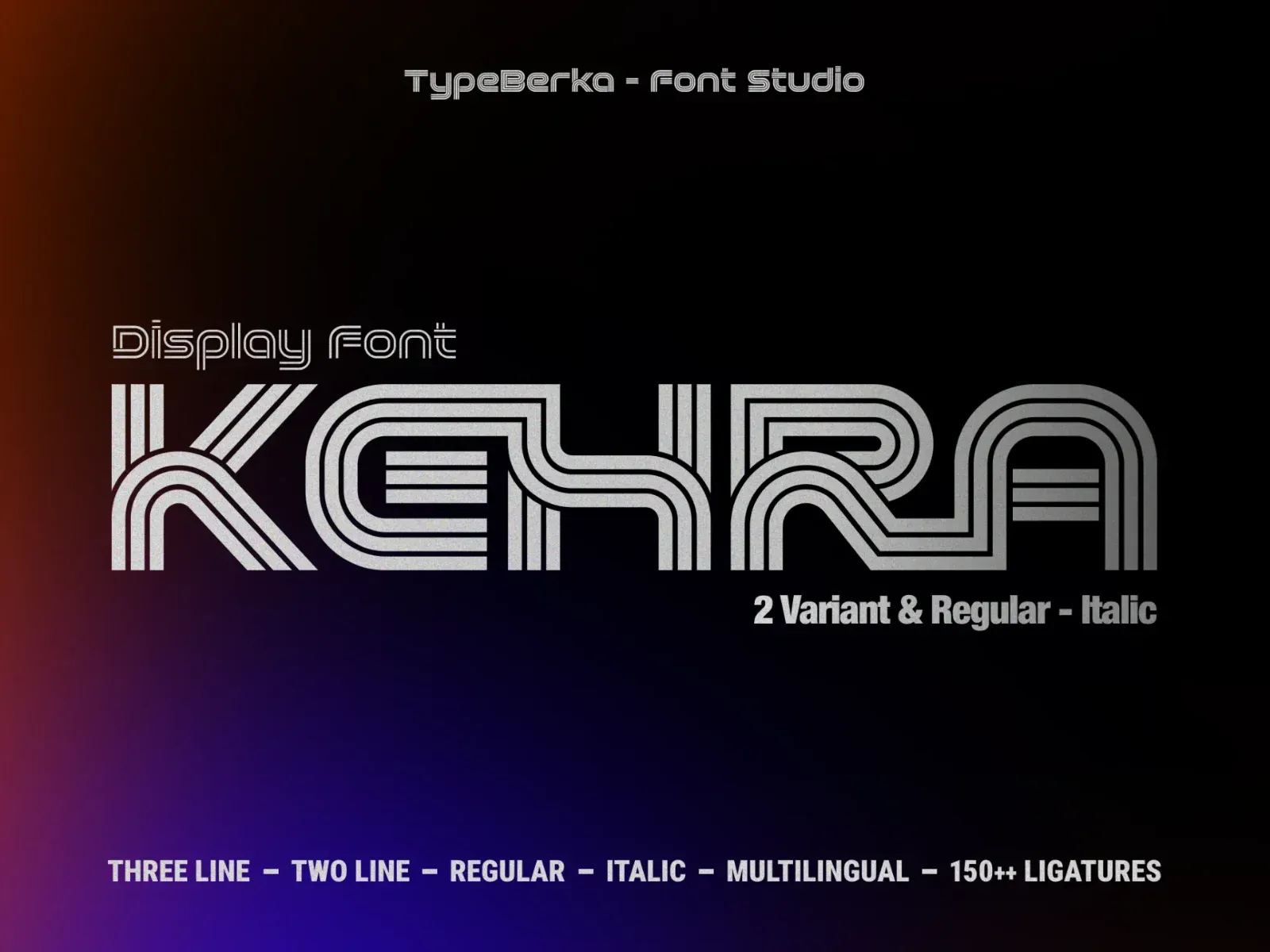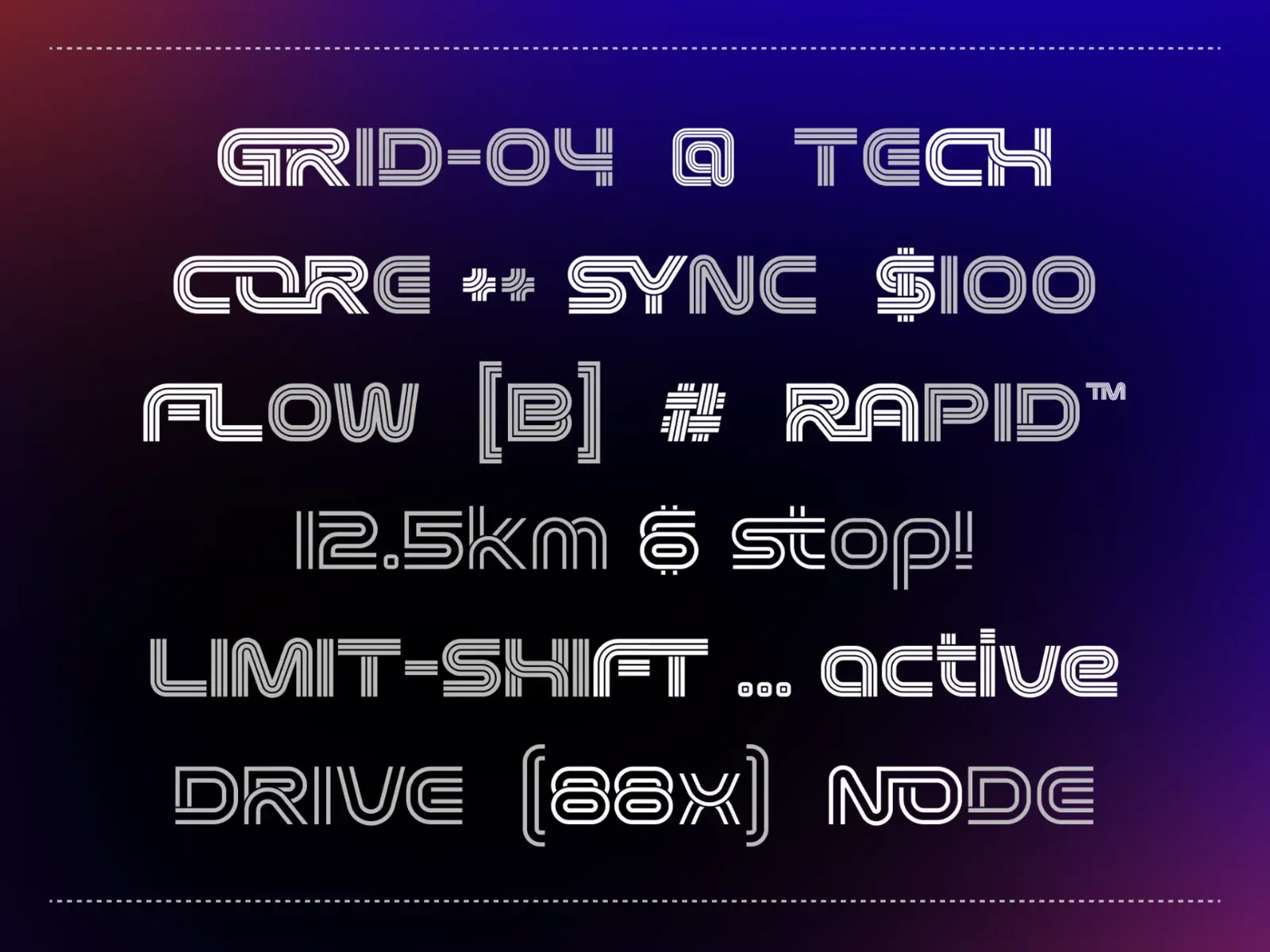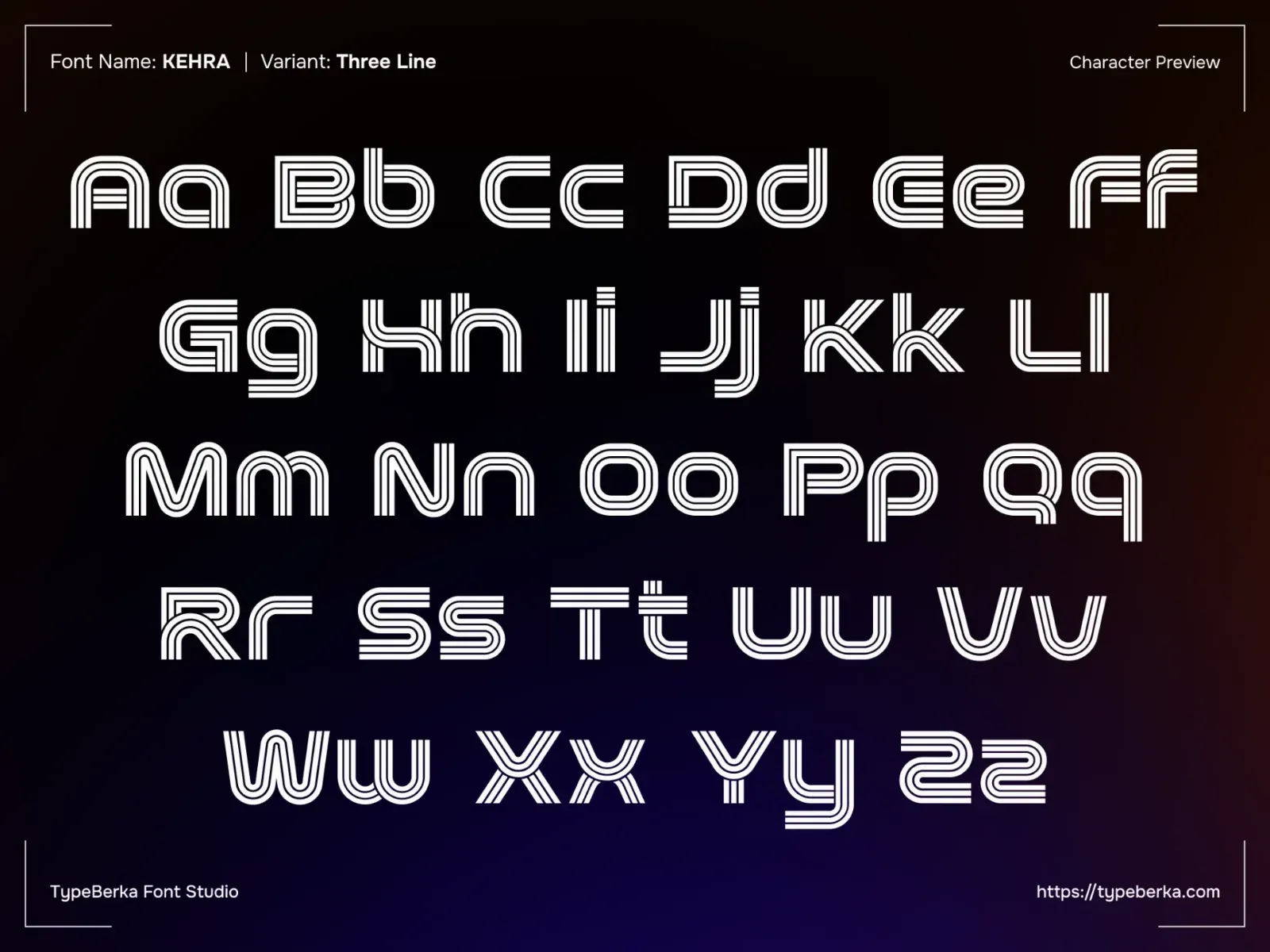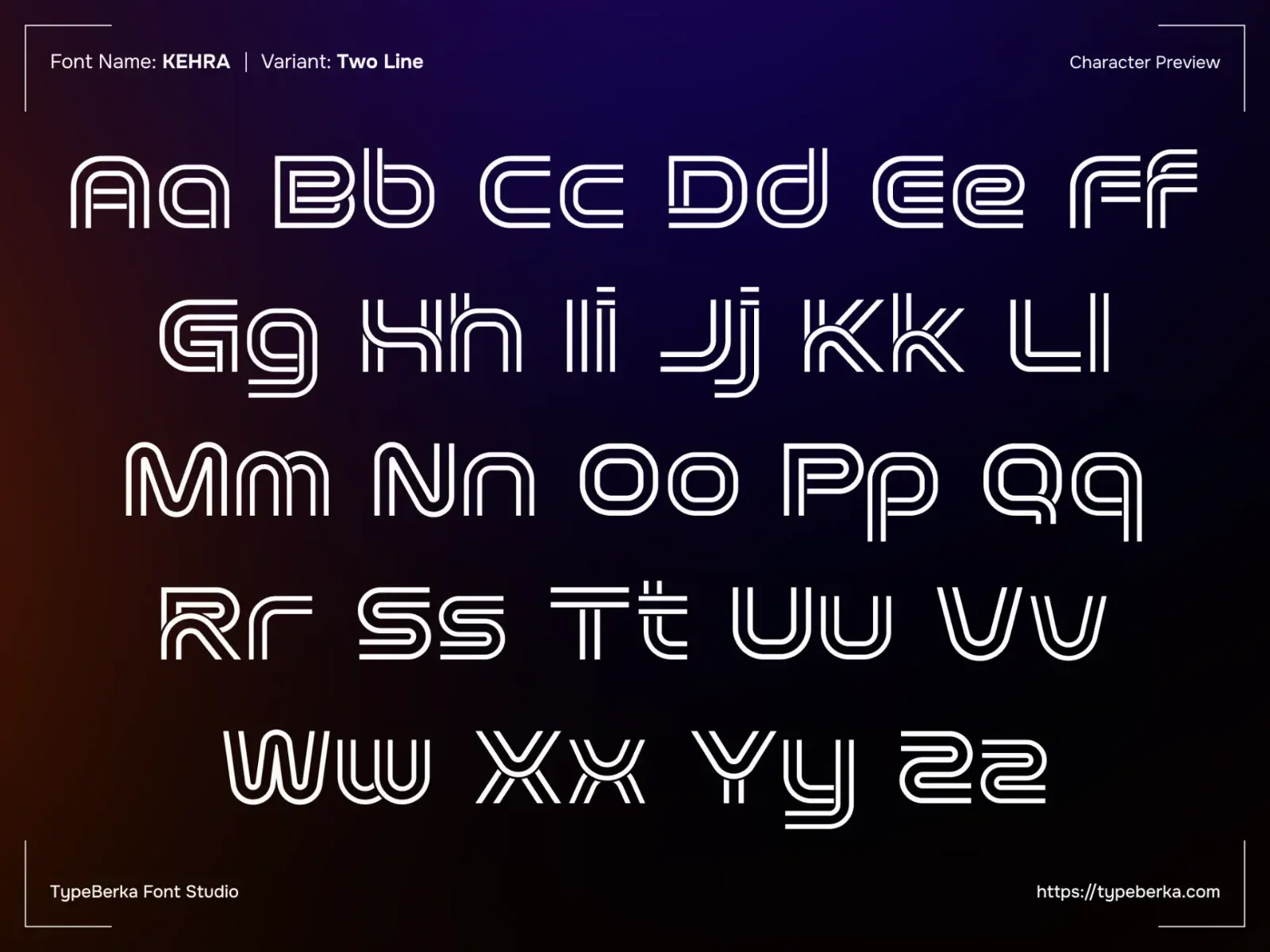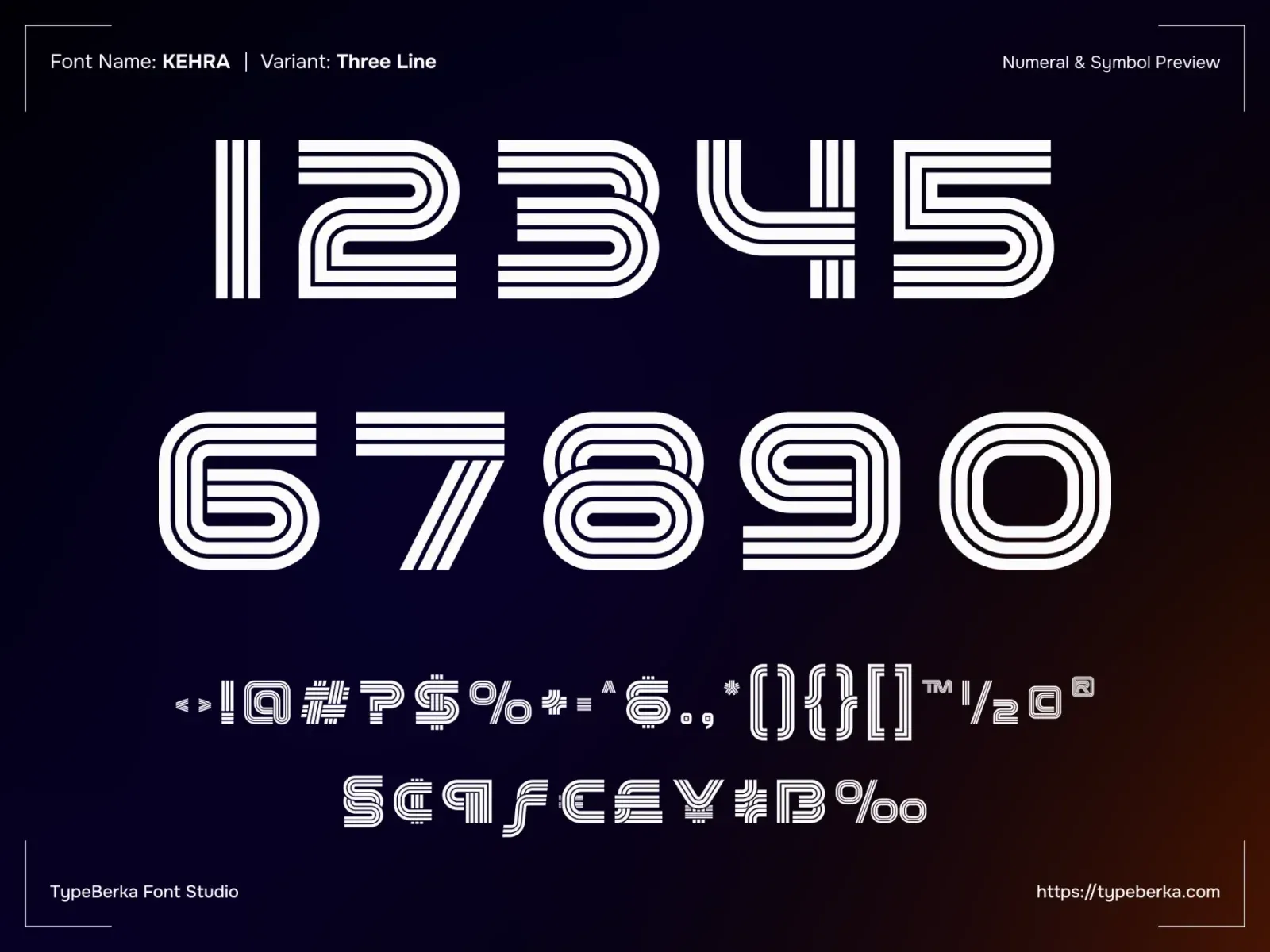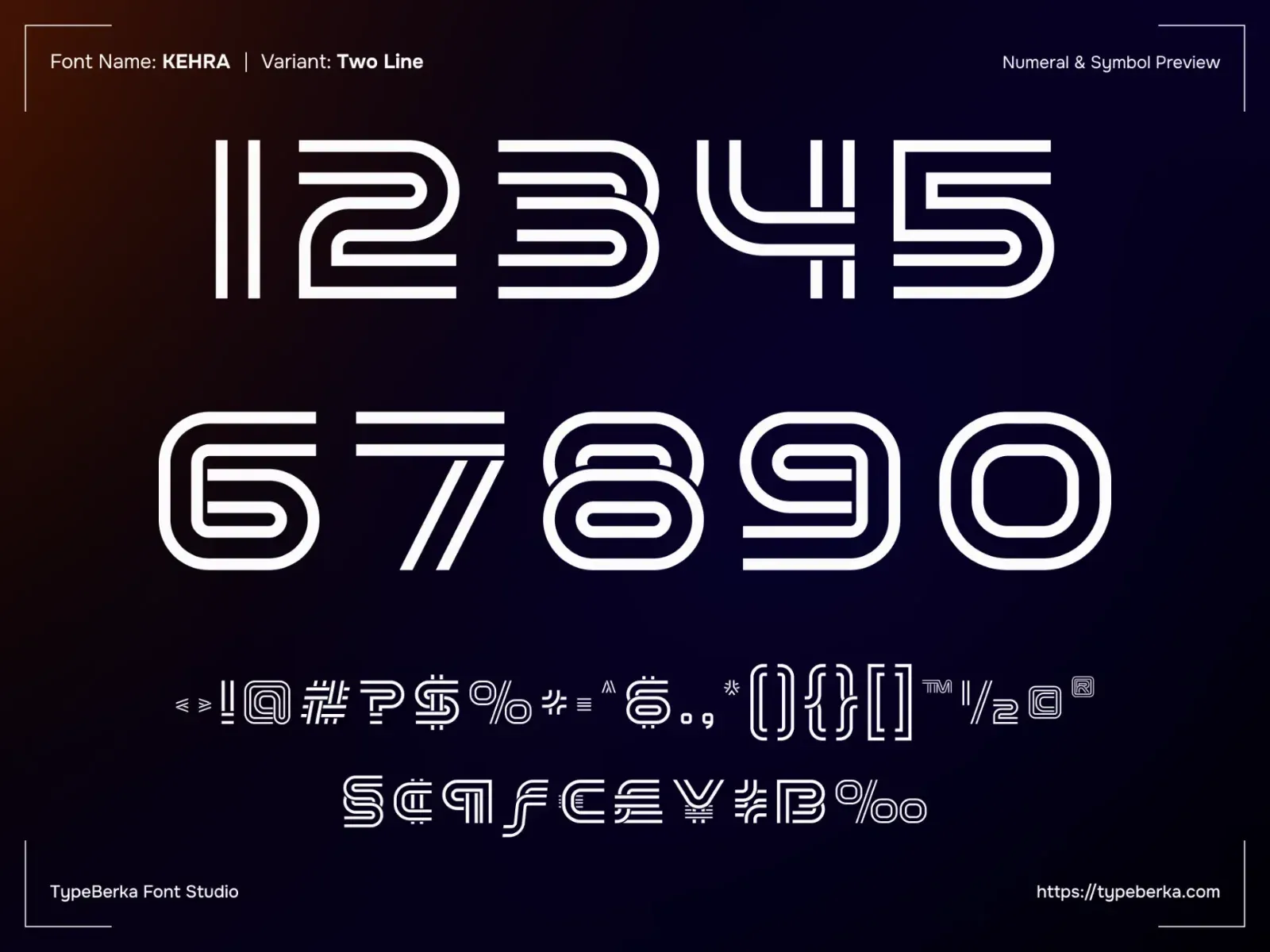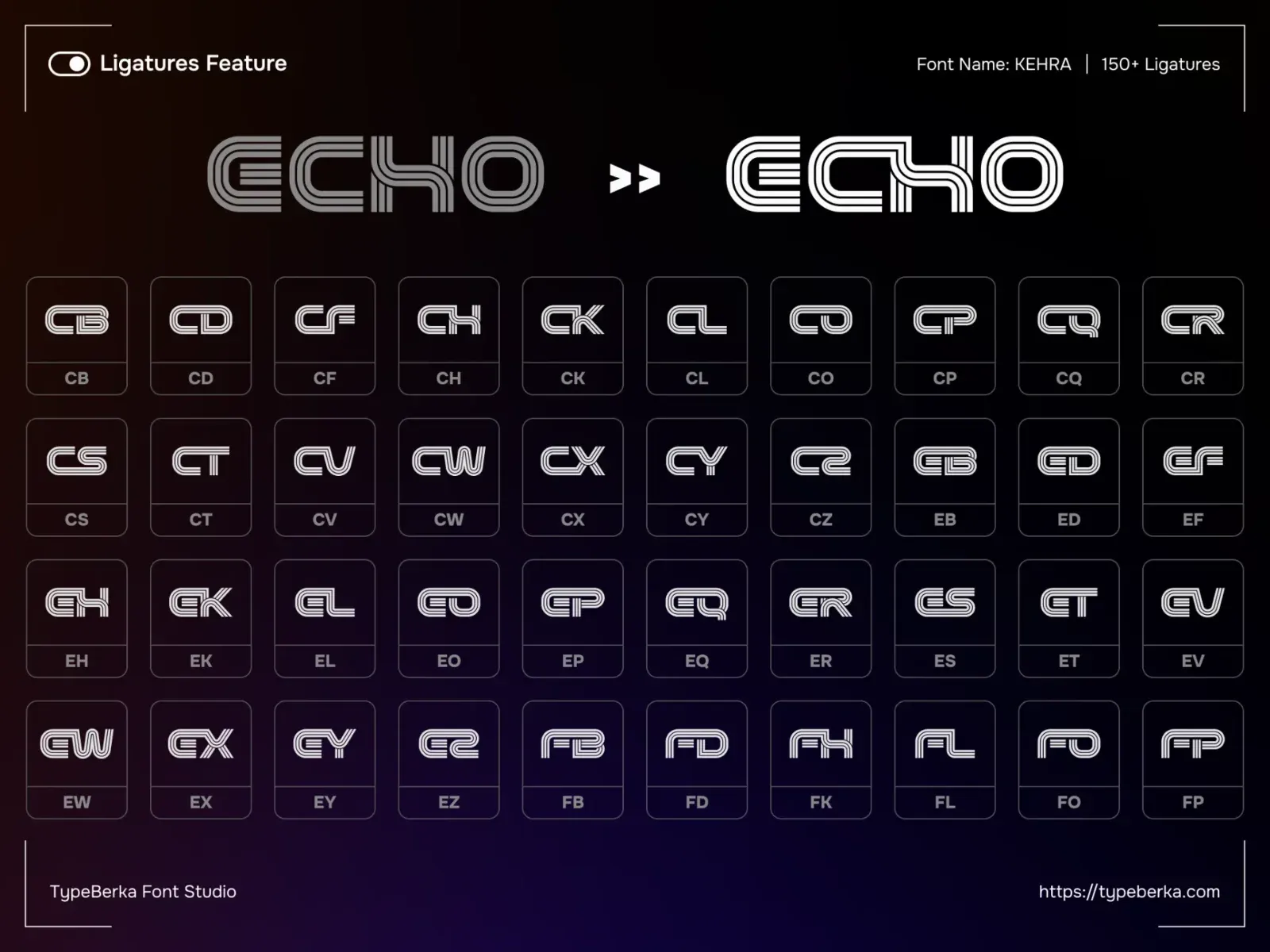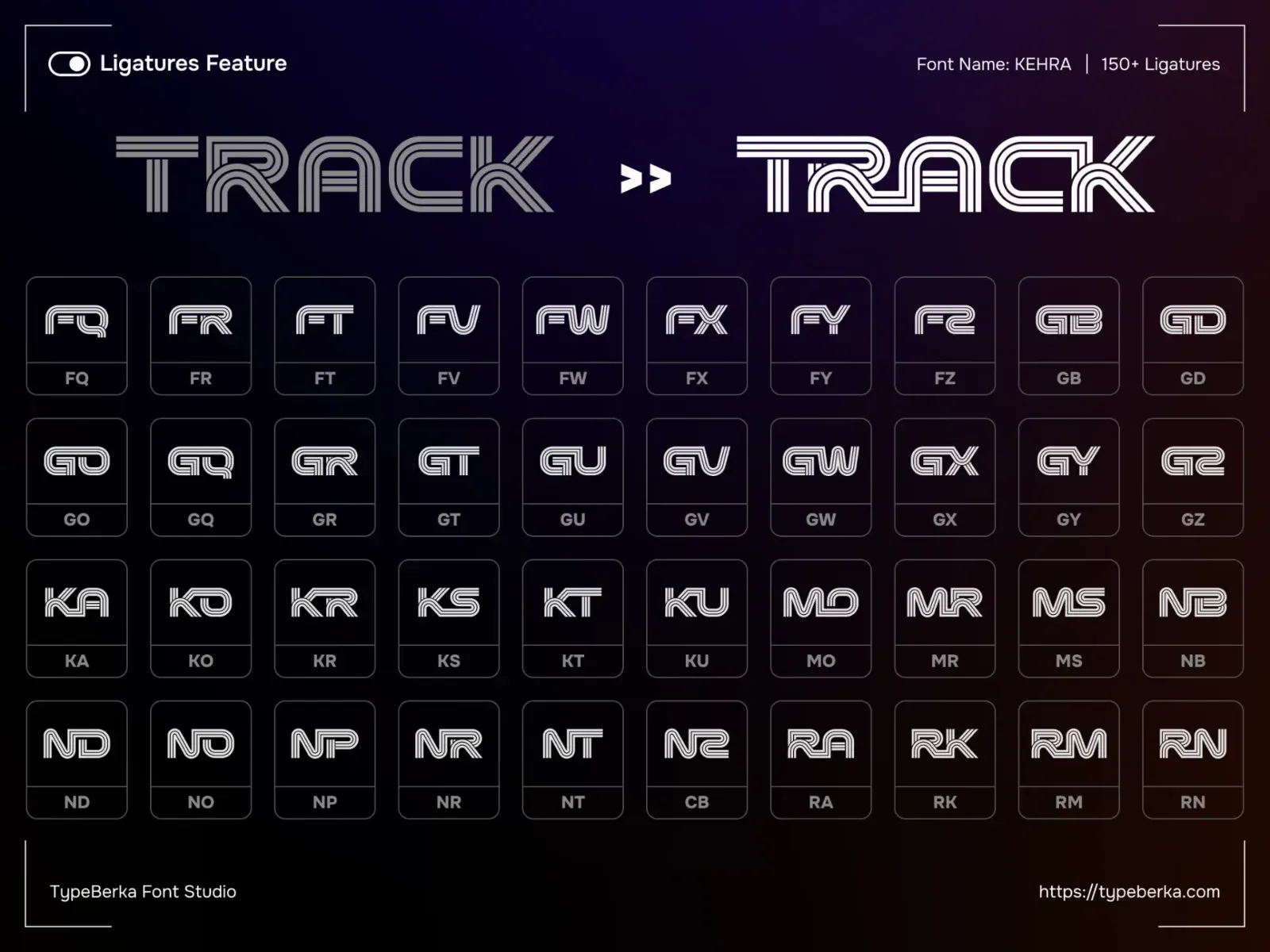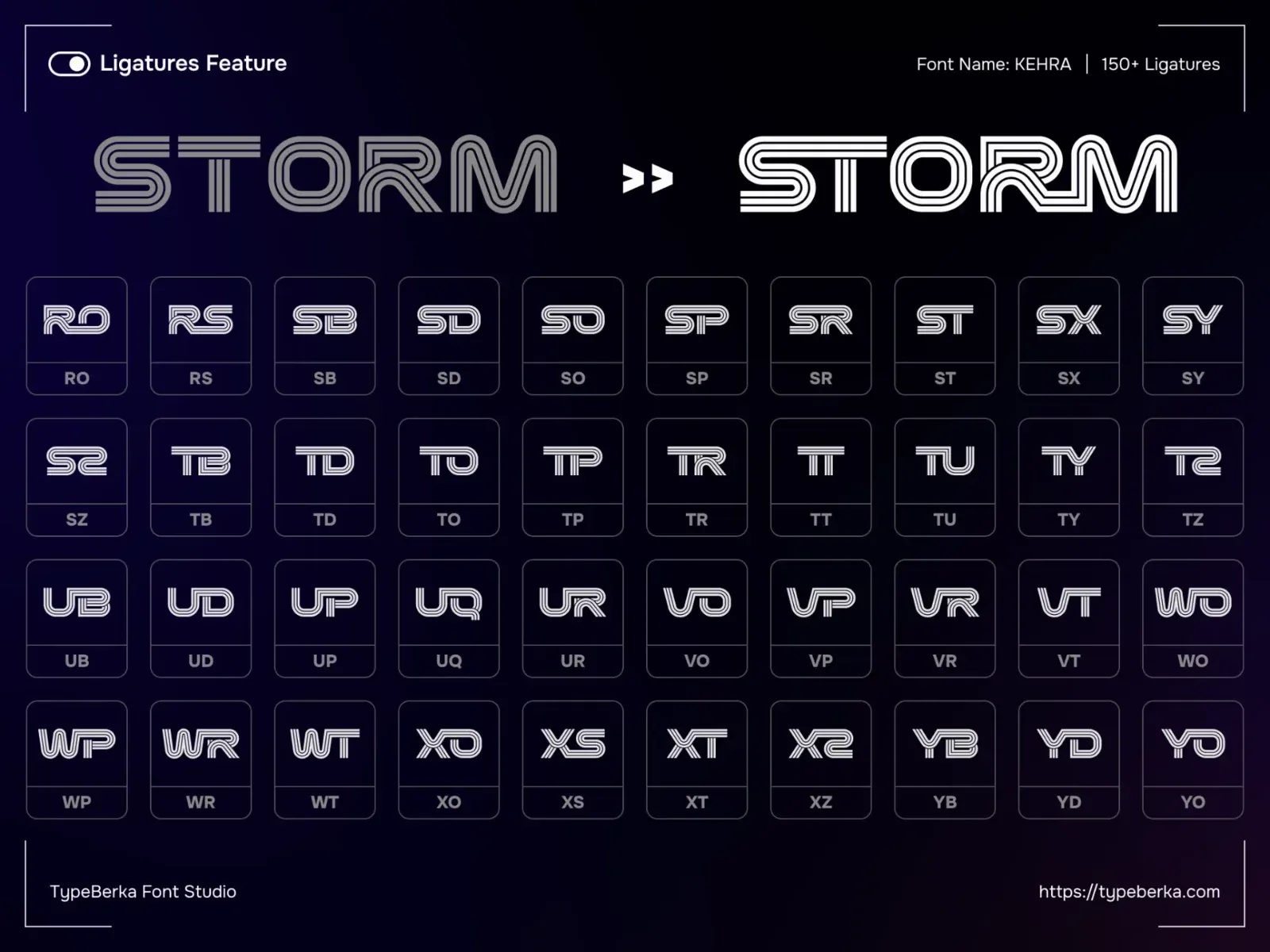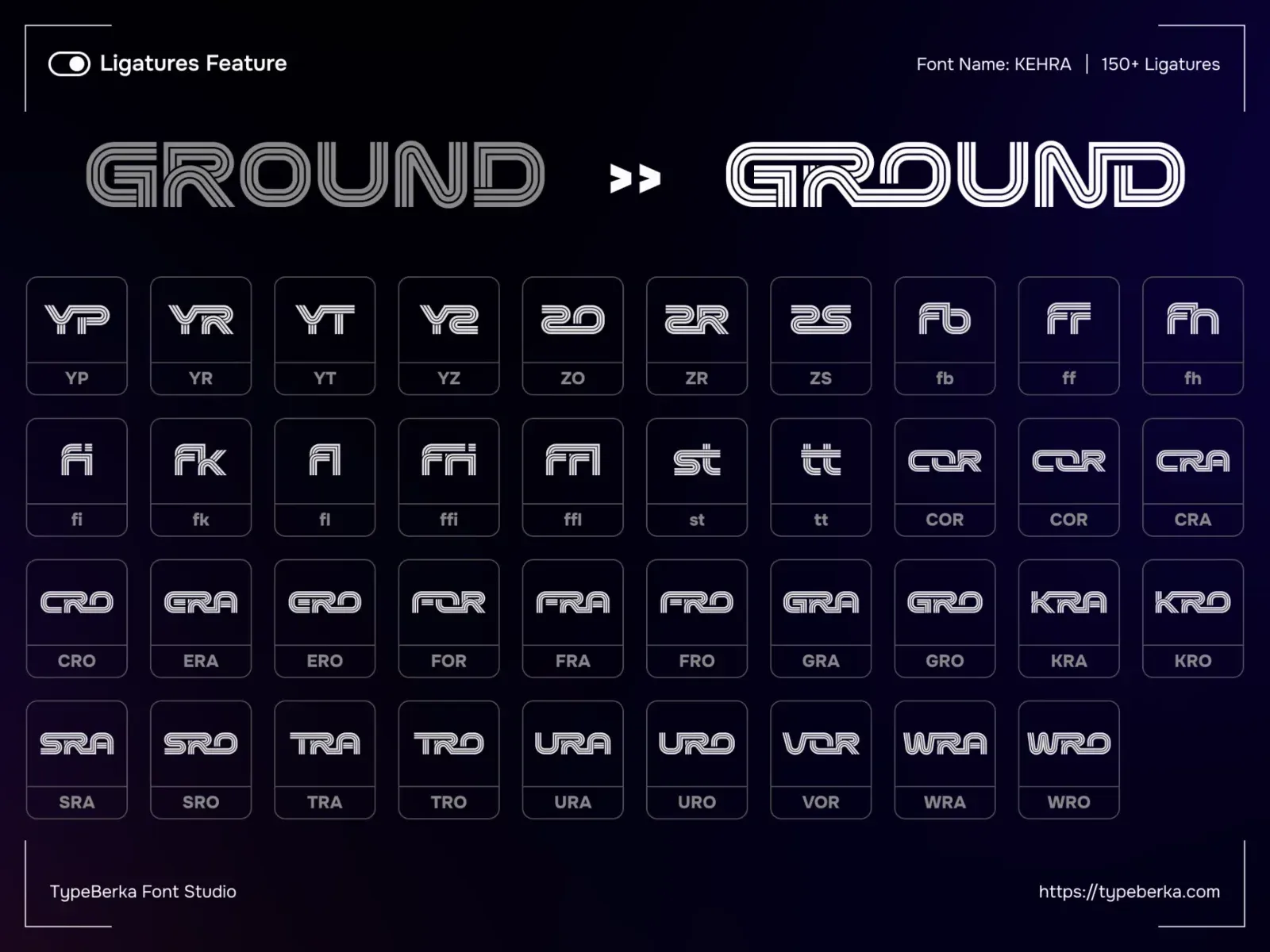
KEHRA is a modern display font featuring unique multiline strokes, geometric curves, and a futuristic aesthetic. Designed for bold visual impact, this typeface combines technical precision with smooth flow, making it perfect for branding, sports design, tech visuals, posters, and digital interfaces.
With two distinctive styles (Three Line & Two Line), plus Regular and Italic variants, KEHRA offers flexibility for both clean layouts and dynamic compositions. It also includes 150+ ligatures to create seamless letter connections and elevate your typography to a more advanced, custom look.
Built with balanced proportions and carefully crafted details, KEHRA ensures strong readability while maintaining a unique visual identity, even at large display sizes.
• Branding & Logo Design
• Sports & Automotive Graphics
• Tech & Futuristic UI
• Posters & Social Media
• Event & Apparel Design
• Two styles: Three Line & Two Line
• Regular & Italic versions
• 150+ Ligatures
• Numbers & Symbols included